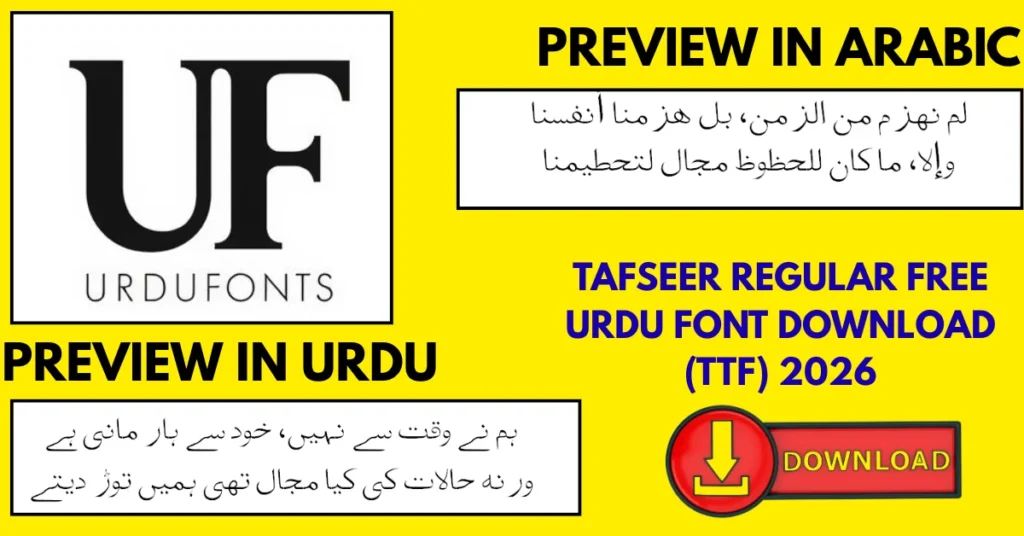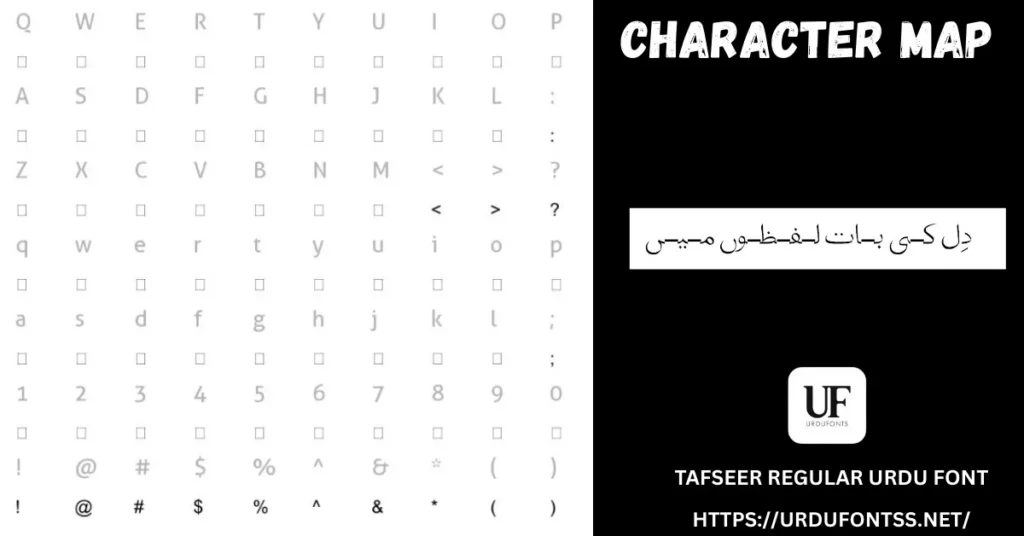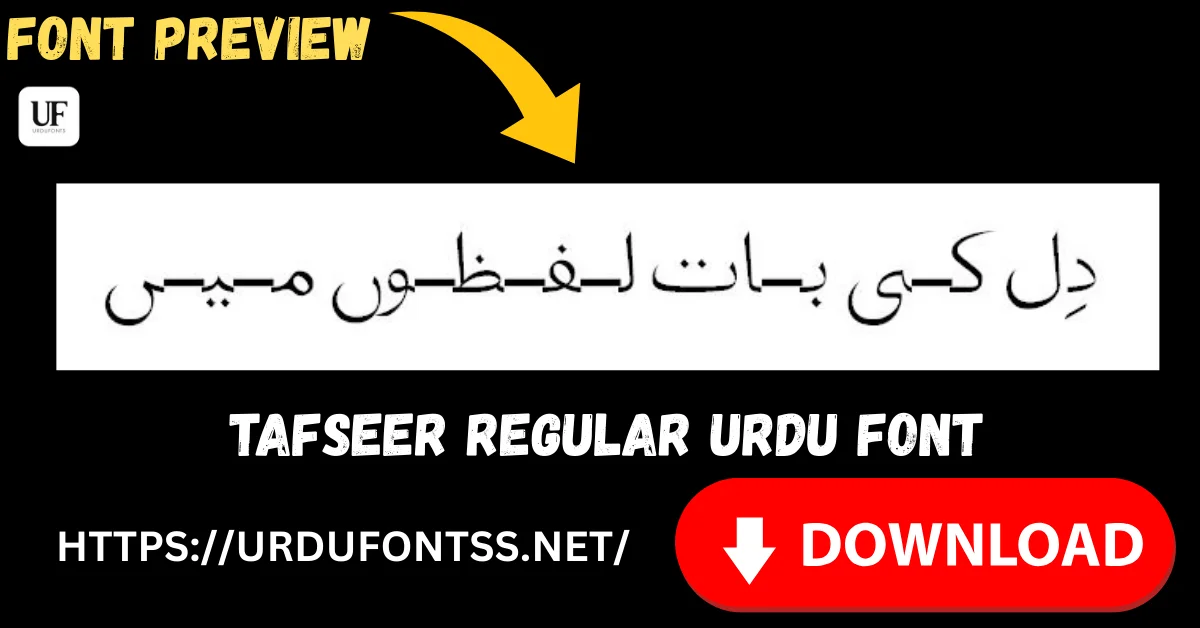
Tafseer Regular Free Urdu Font Download (TTF) 2026
Overview of Tafseer Regular Font
Tafseer Regular offers a clean and contemporary Urdu style suitable for multiple purposes. Its design ensures your text looks professional while remaining visually appealing.
Common Applications:
- Online Content: Blogs, websites, and social media posts in Urdu.
- Graphic Design: Posters, banners, greeting cards, and invitations.
- Printed Material: Books, magazines, and brochures.
- Professional Use: Letters, reports, and official documents.
Why Tafseer Regular Is a Designer Favorite
- Clean and Elegant Style: Ideal for headings, body text, and digital projects.
What Makes Tafseer Regular Special
- Smooth Urdu letterforms suitable for modern and traditional designs.
- Perfect for social media, blogs, digital publications, and print projects.
Conclusion of Tafseer Regular
Tafseer Regular is an essential Urdu font for content creators, designers, and writers. Its modern and readable style, combined with a lightweight file and wide compatibility, makes it perfect for digital content, print materials, and professional documents. Use it to enhance poetry, social media posts, or creative projects with elegance and clarity.